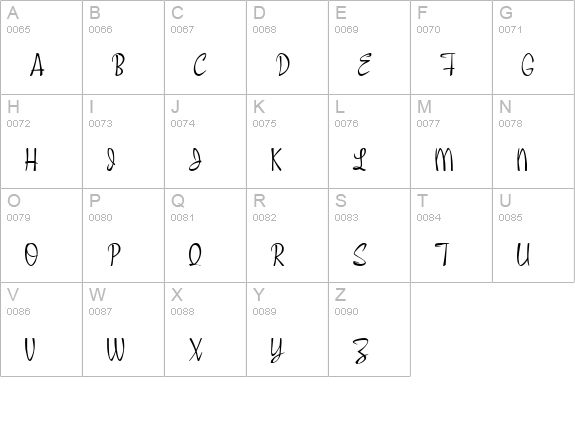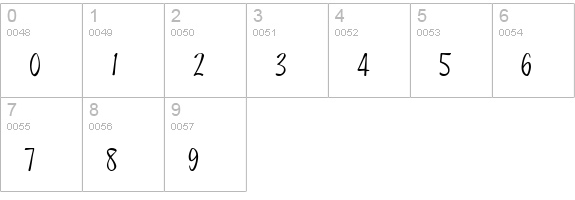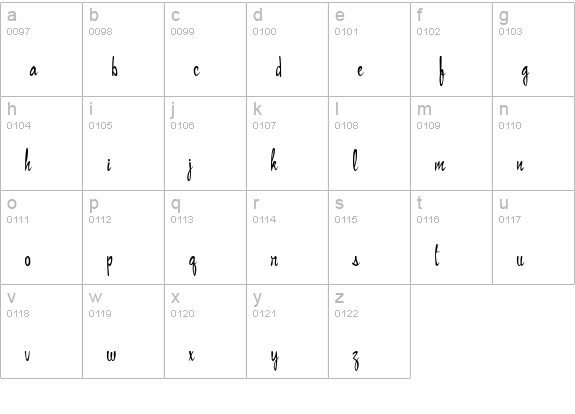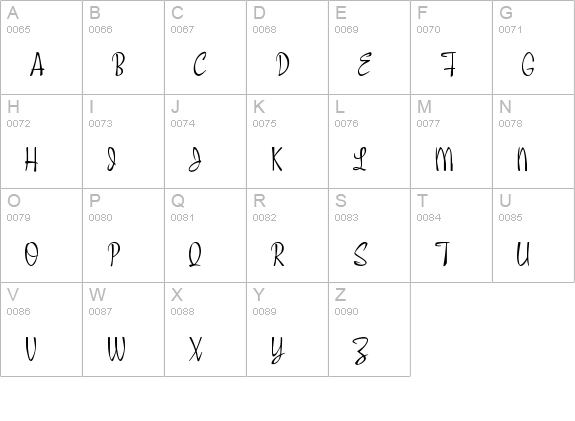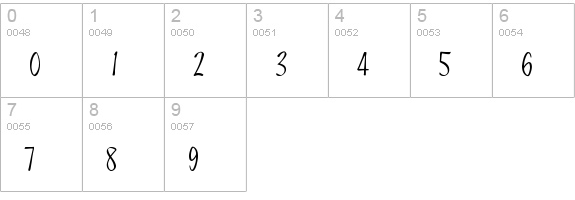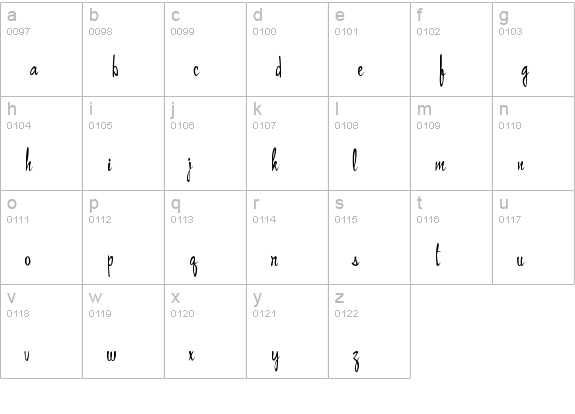
SinglesvilleScript Font Details
Introducing SinglesvilleScript, a stunningly elegant font that will bring a touch of sophistication and charm to your designs. With its graceful, flowing strokes and delicate curves, this font exudes a romantic and timeless feel. SinglesvilleScript is perfect for adding a touch of class to wedding invitations, love letters, and any project that requires a touch of elegance. Its versatility allows it to be used in a variety of contexts, from personal projects to professional designs. But what truly sets SinglesvilleScript apart is its availability as a free font. That's right, you can freely download this exquisite font at FontsMarket.com. We believe that great design should be accessible to everyone, and we are thrilled to offer this opportunity to all aspiring designers and creatives. Whether you're a seasoned professional or just starting out, SinglesvilleScript is here to elevate your designs to new heights. Its smooth lines and sophisticated curves will captivate your audience and leave a lasting impression. So why wait? Embrace the beauty of SinglesvilleScript and bring your designs to life. Download this free font today at FontsMarket.com and let your creativity flourish like never before.